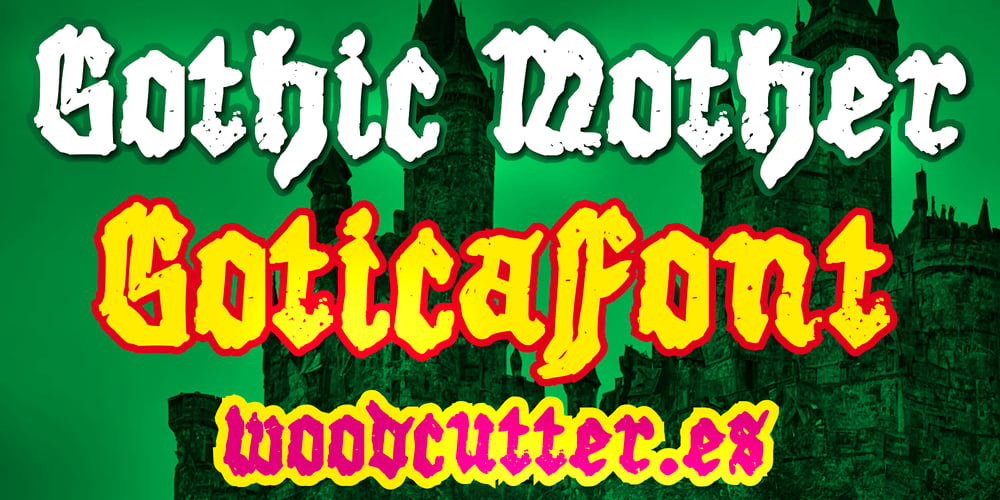
Gothic Mother
Gothic Mother font
Gothic Mother Font Family was designed by Jordi Manero and published by Woodcutter. Gothic Mother contains 1 styles and family package options. “Gothic Mother” is a Gothic typeface featuring uppercase and lowercase letters, as well as accents. The letters of this font are worn and exhibit imperfections in their alignment within the text line, giving it an ancient and authentic look. Ideal for projects aiming to convey a sense of antiquity and mystery, “Gothic Mother” is perfect for titles, logos, and designs that require a distinctive appearance with a historical touch.